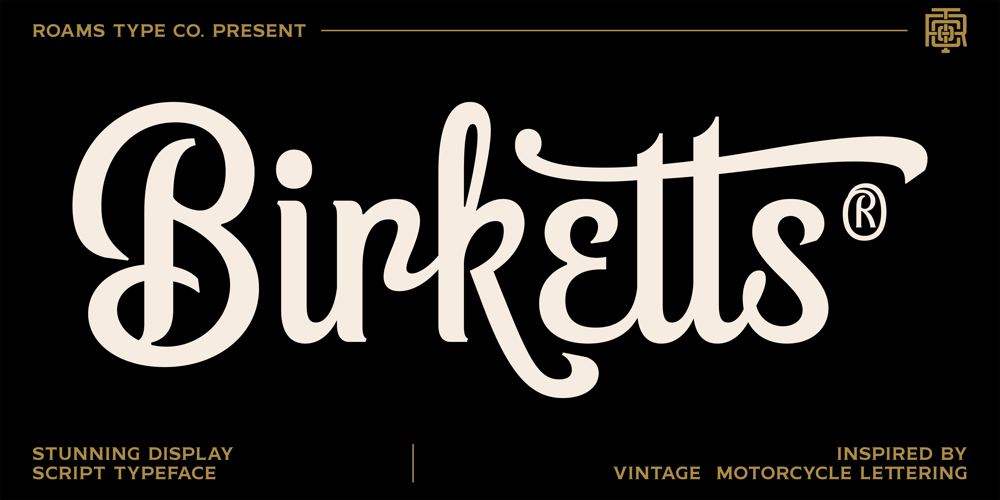
RTCO Birketts Font Family was designed by Abdul Rochman and published by Roams Type Co. RTCO Birketts contains 1 styles and family package options. RTCO Birketts Font made based on the concept of vintage style graphic design, inspired by the stunning lettering vintage motorcycle logotype, Sign, Poster, etcThis font is suitable for graphic designs such as logotypes, merchandise, printed stickers, and other branding needs.I hope you enjoy for using this stunning script font for your stunning design.